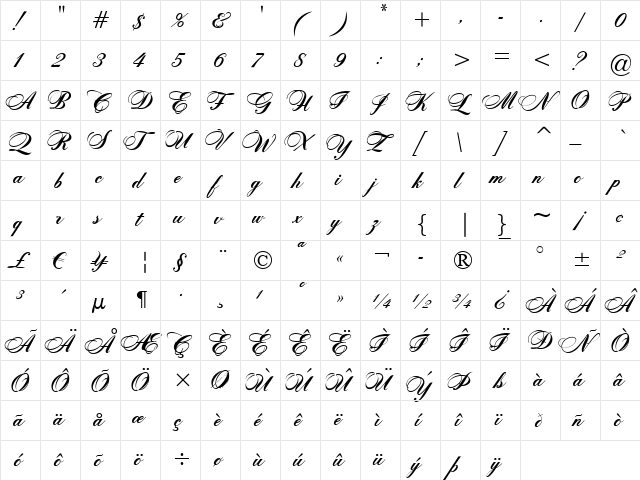
Handletter No12 Regular
| Foundry | Ludlow Typograph Company |
Design Context for Handletter No12 Typeface
Handletter No12 flows with the natural rhythm of handwritten lettering, making it ideal for designs that call for warmth and personal expression.
Font Pairing: Combine Handletter No12 with a simple geometric sans for maximum contrast — the tension between flowing curves and clean structure is a classic typographic pairing.
Pro Tip: Use Handletter No12 for short runs of text — names, titles, or taglines. Extended body copy in script faces tires the eye quickly.